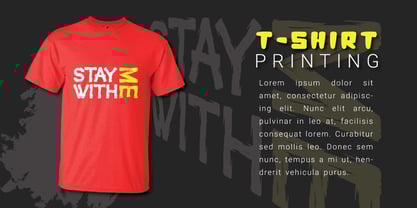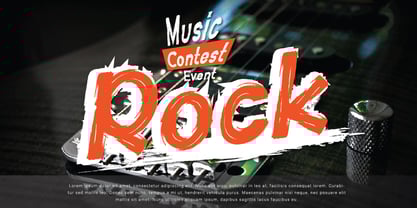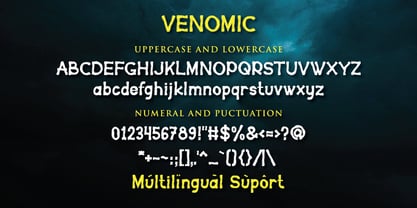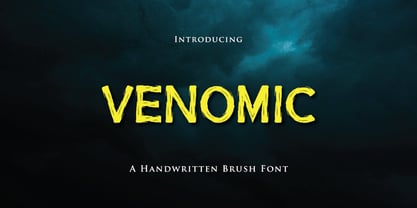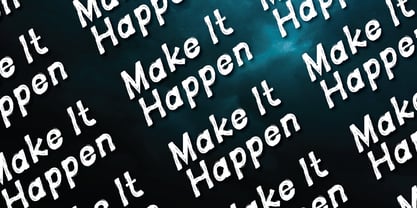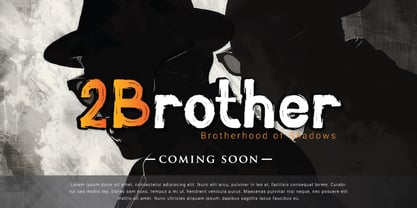
Venomic
by JprintStudio
The Venomic Font Family was designed by Gais Zaelani and published by JprintStudio. Venomic contains 2 styles and family package options.
Presenting Venomic Brush - a captivating handwritten brush font, effortlessly combining beauty and timelessness. This exceptional typeface adds a unique, touching detail to each letter, infusing your designs with life and vibrancy. Ideal for crafting striking logos, impactful branding, or memorable quotes, the Venomic Brush is your passport to creating visuals that truly capture the eye and resonate with your audience.